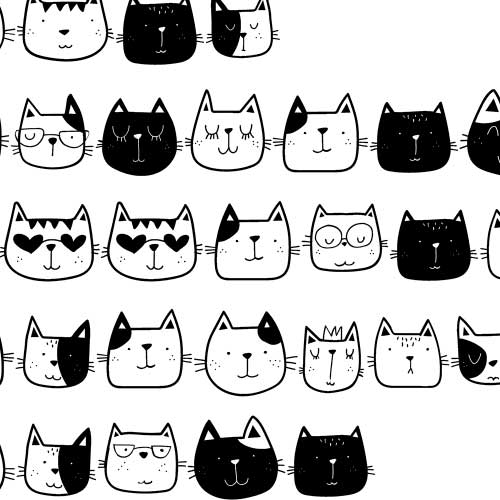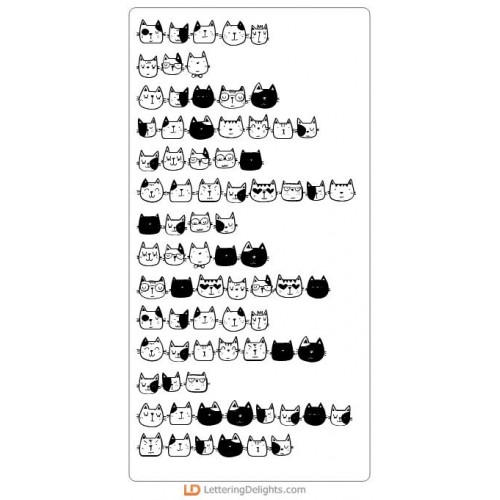
DB Kitty Fiddle - DB
This fun doodlebat font features 26 adorable kitty face emoticons. Perfect for cards, gifts, decor, crafts, scrap book pages, planner stickers and more!